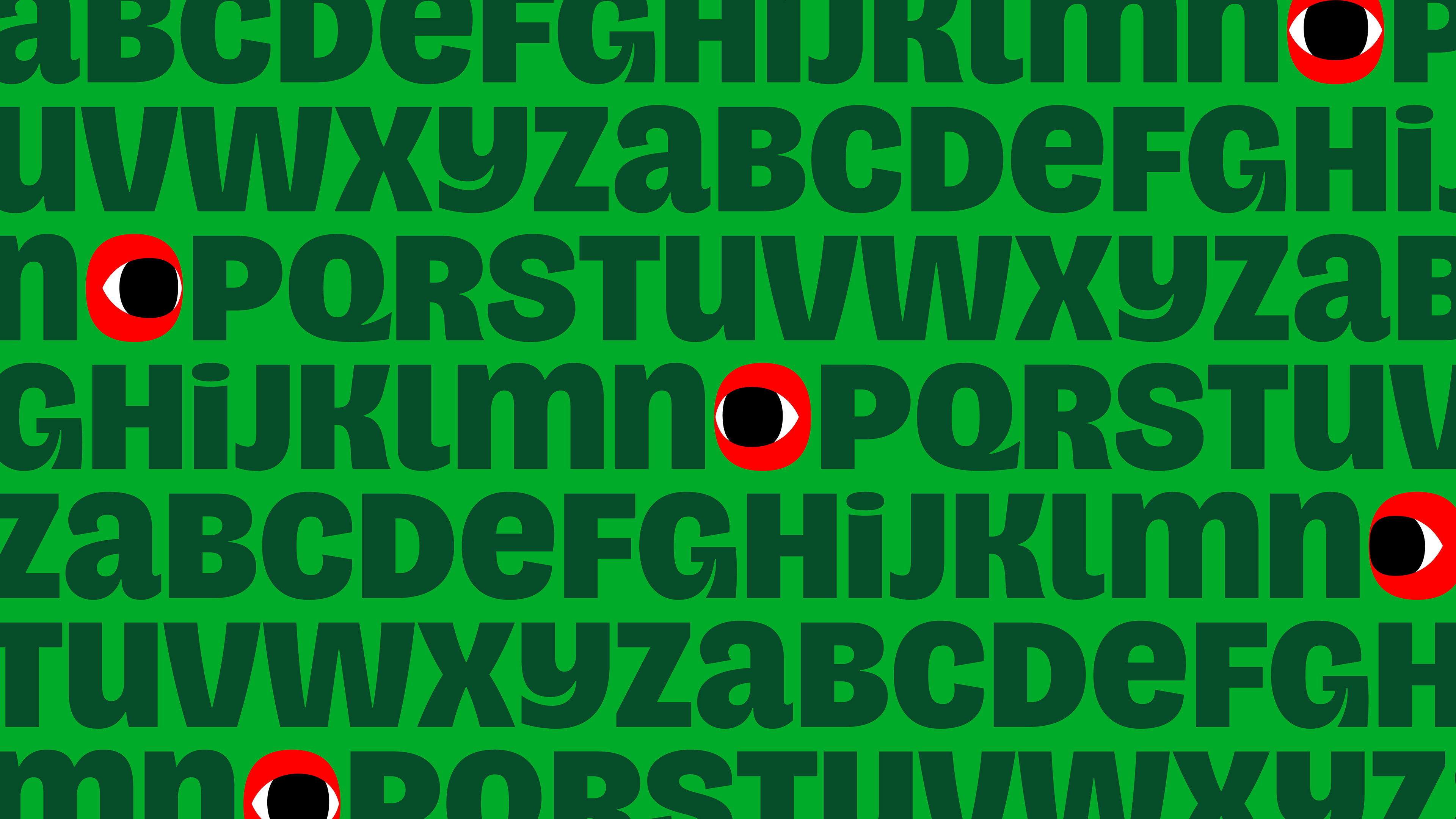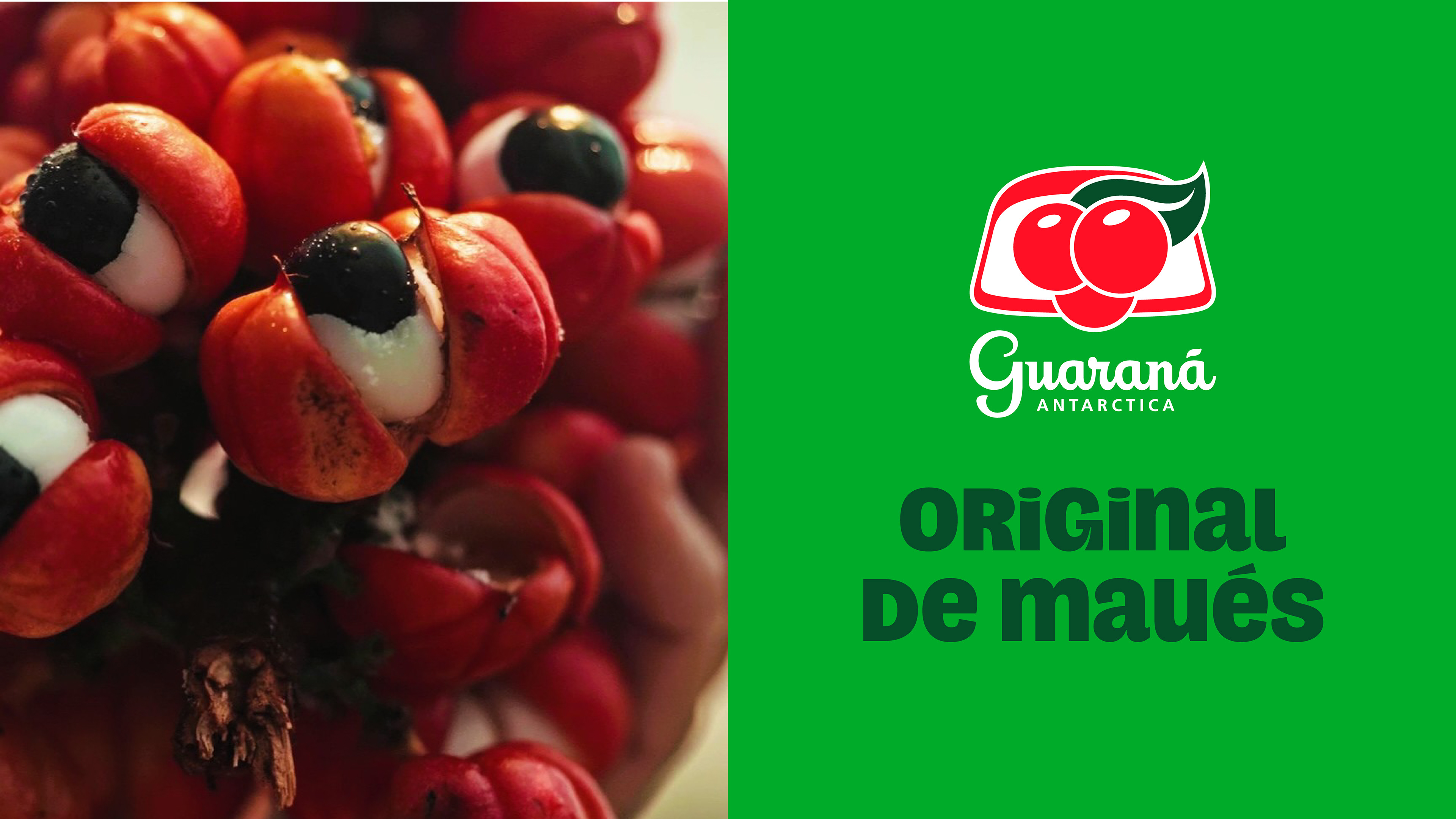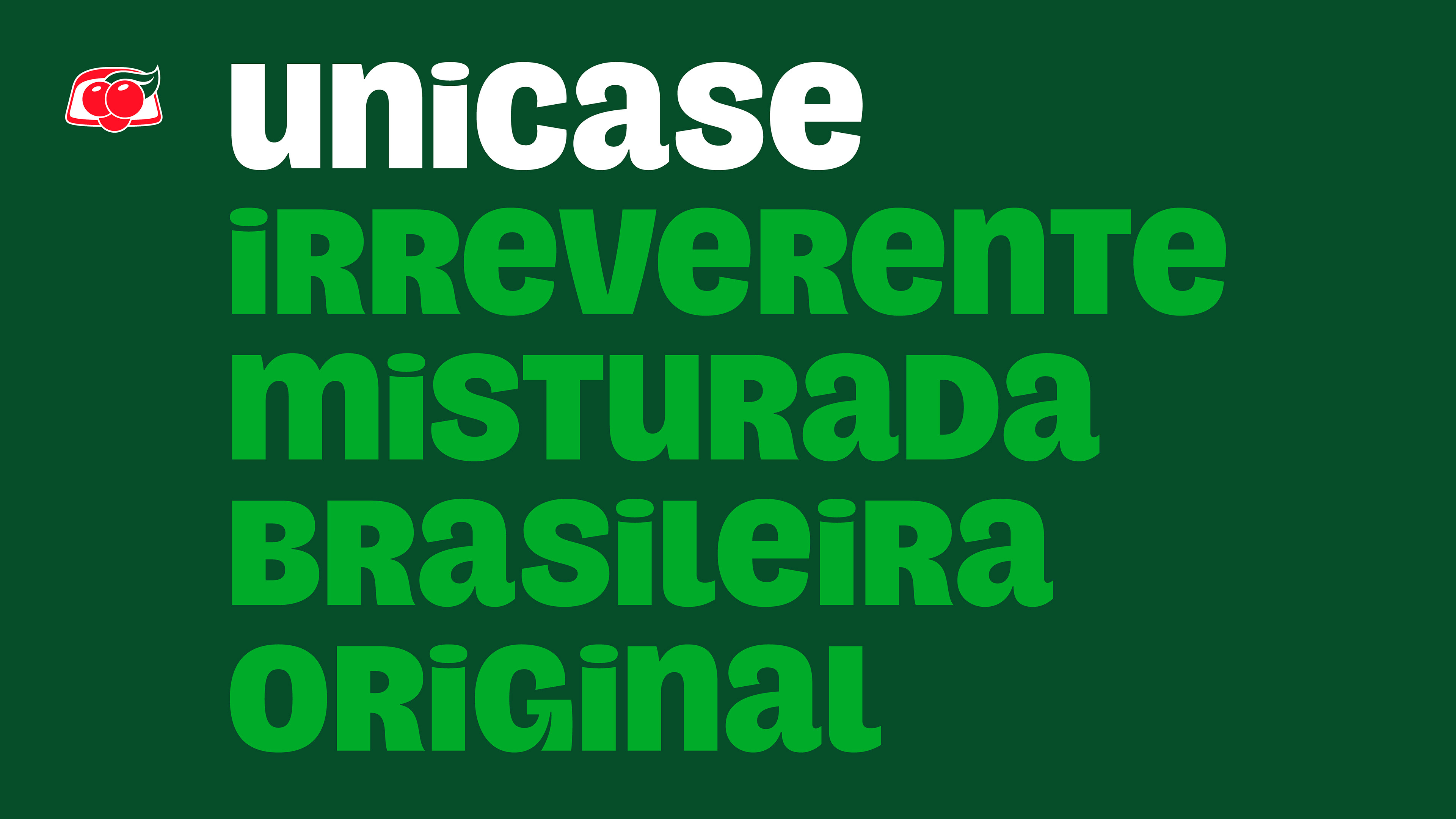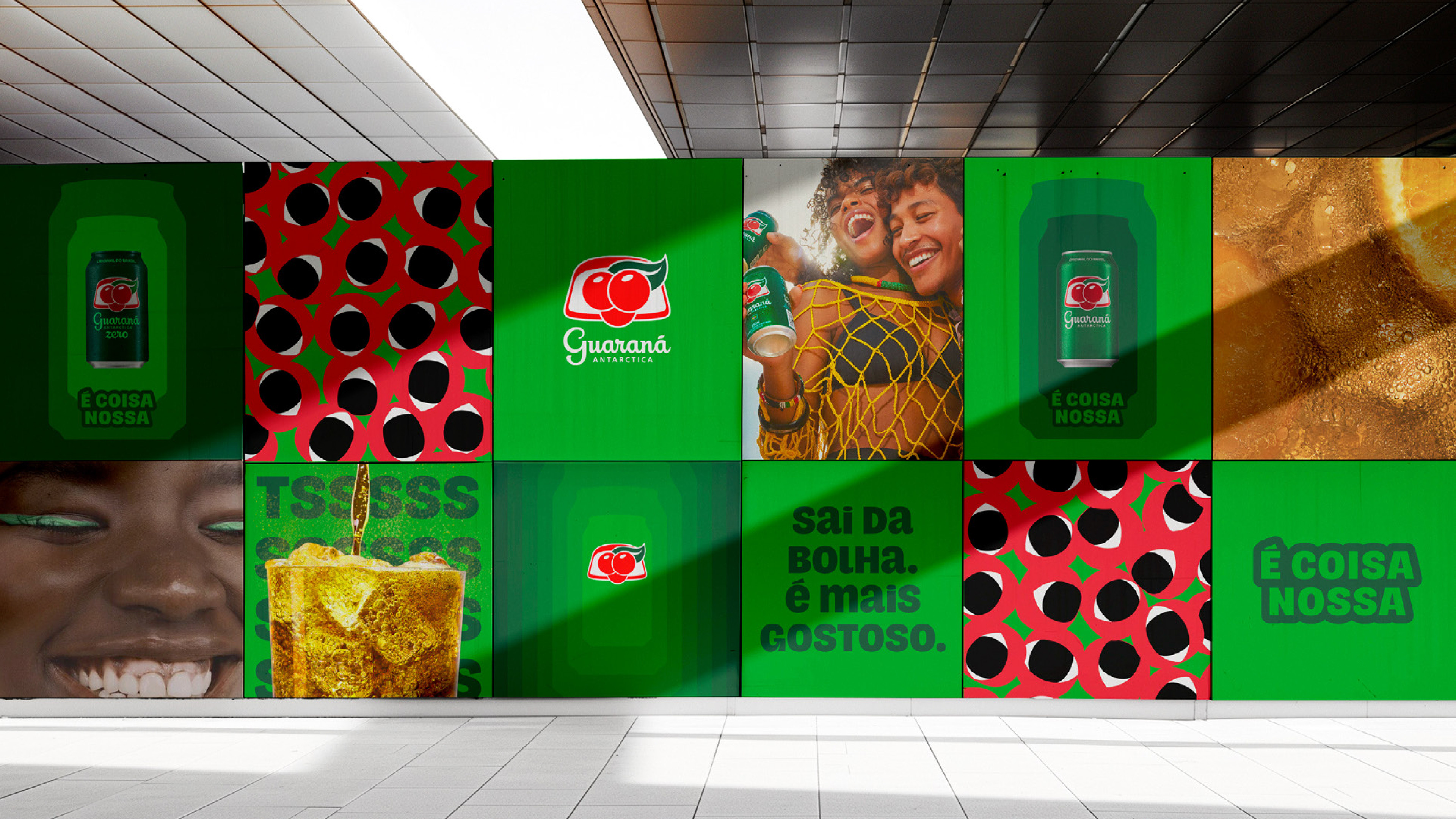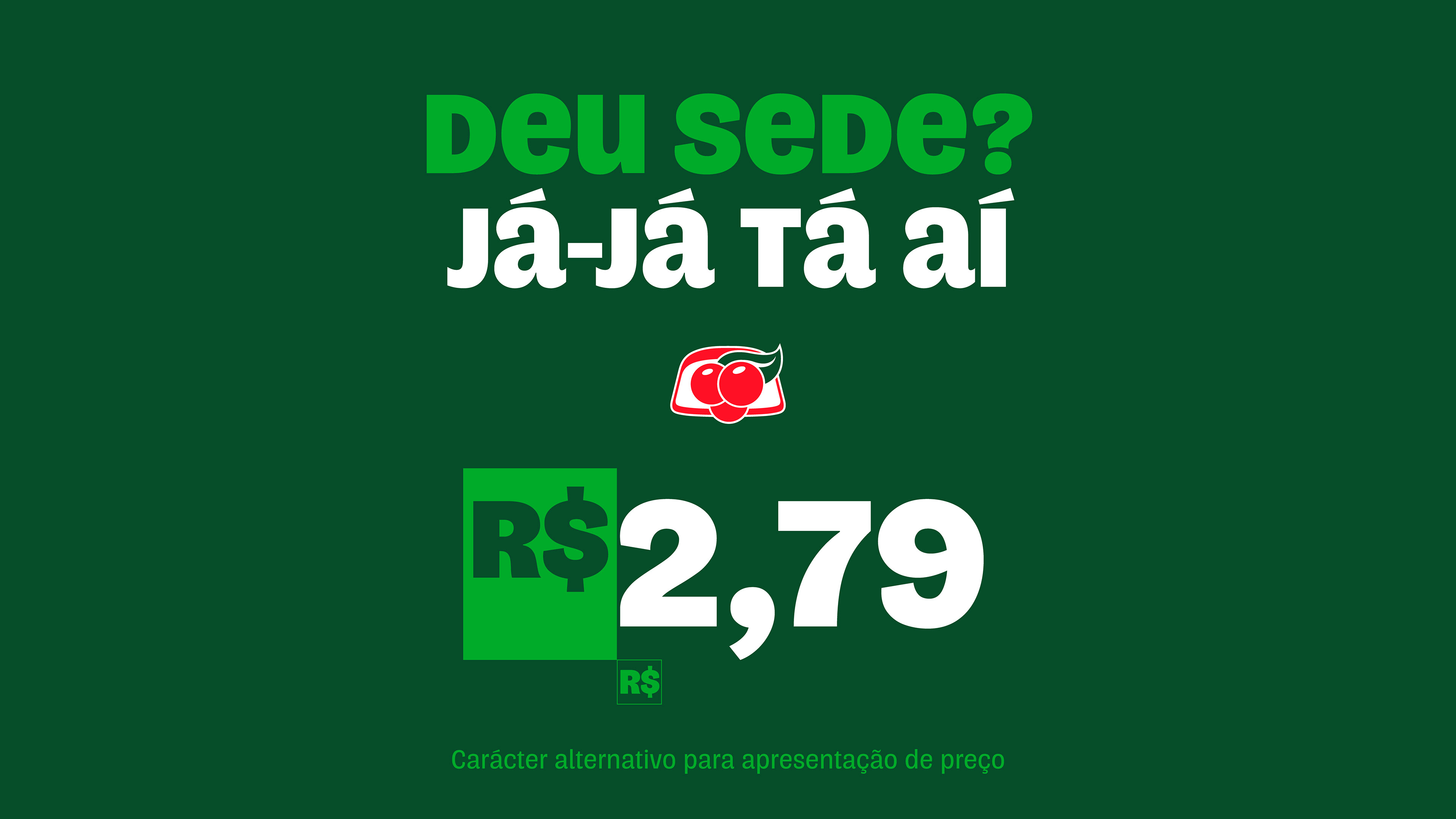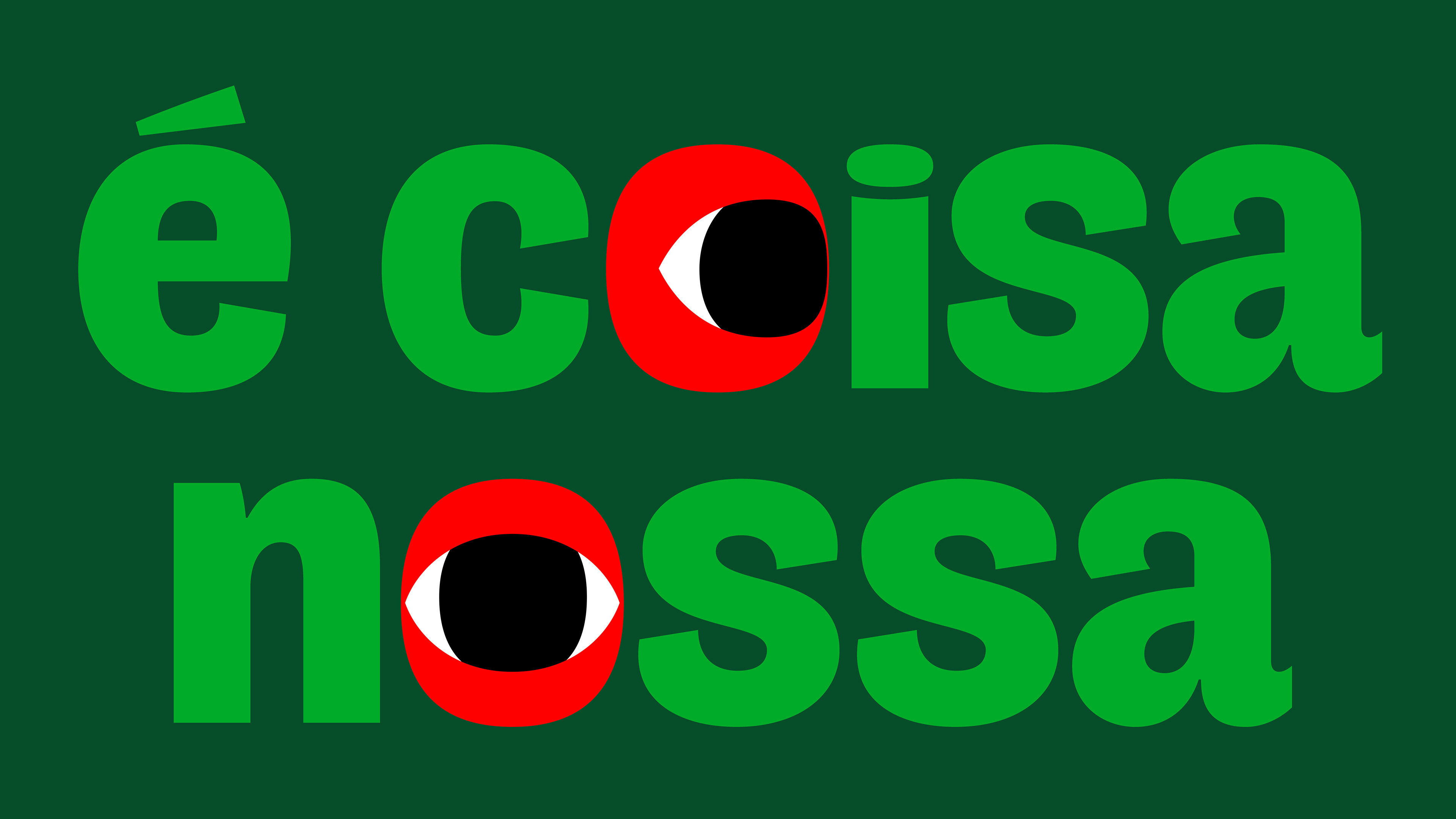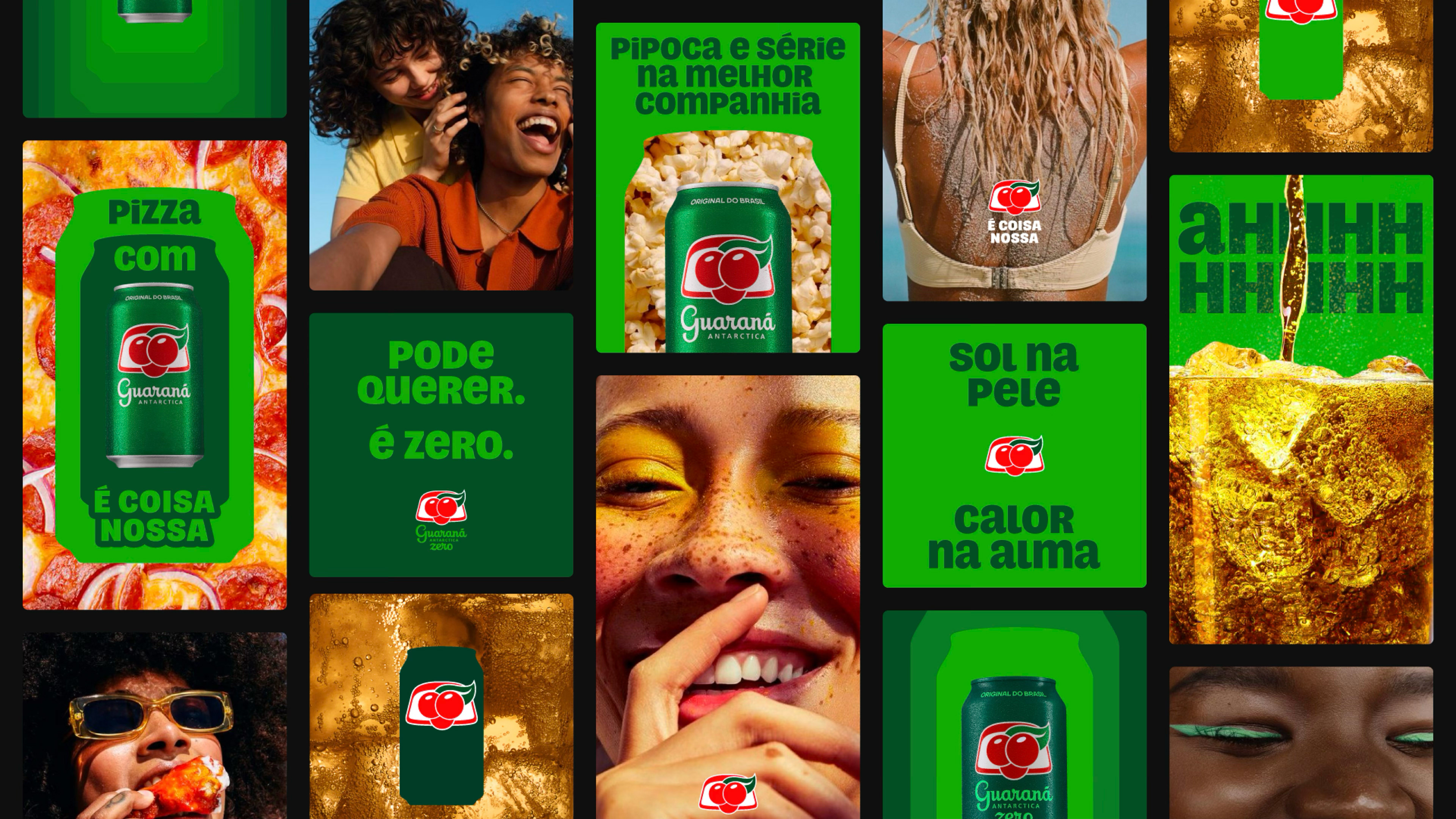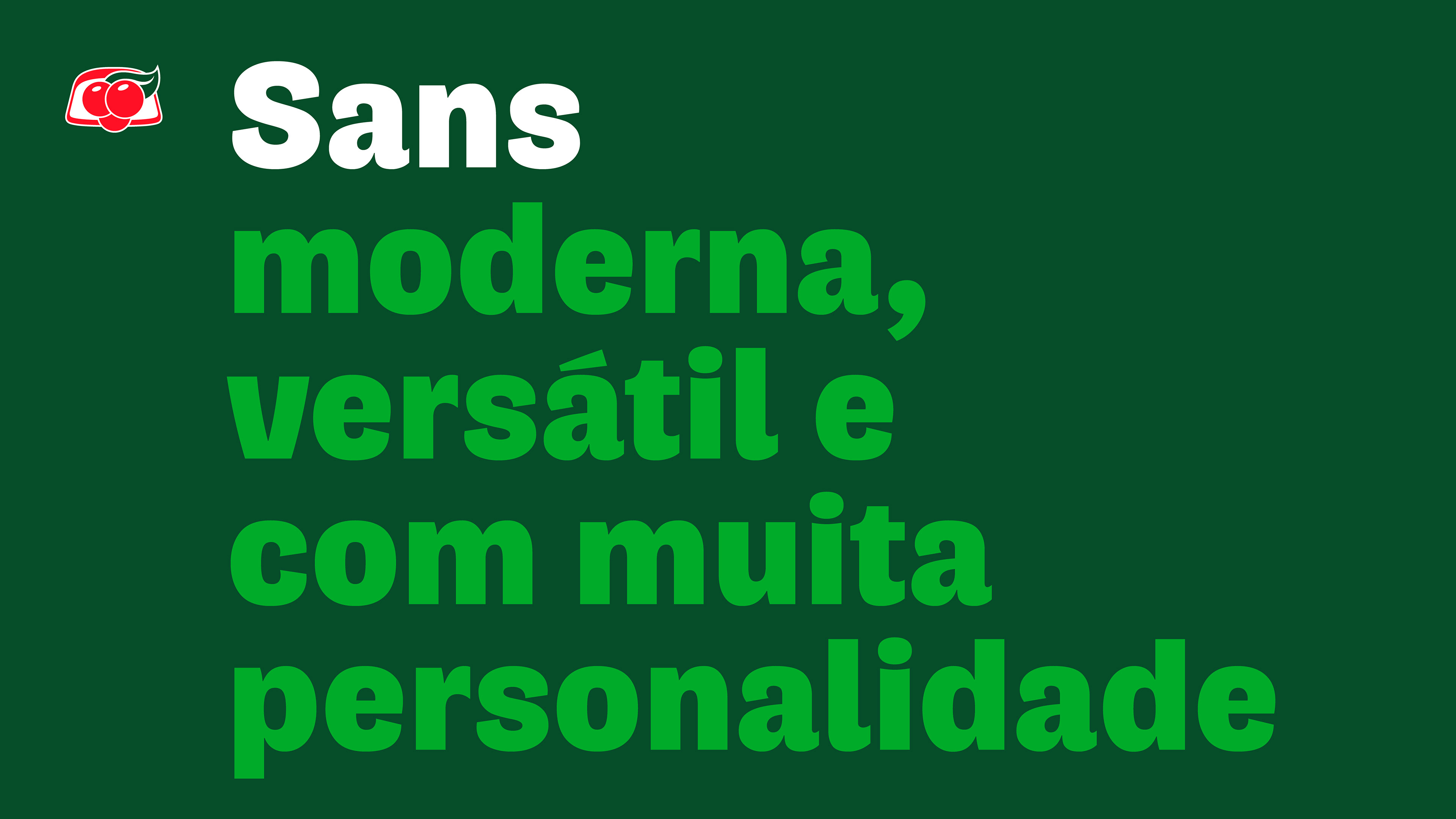
Guaraná Antarctica Typeface
A custom type family that captures the vibrant energy of guaraná. Every curve and contrast conveys movement and vitality, reflecting the spirit of those who live life to the fullest. Original from Brazil and exclusive to Guaraná Antarctica, its sinuous shapes and irreverent personality give voice to a truly unique identity.
Guaraná Antarctica Typeface
Uma família tipográfica proprietária que traduz a energia pulsante do guaraná. Cada curva e contraste expressa movimento e vitalidade, refletindo o espírito de quem vive intensamente. Original do Brasil e exclusiva para o Guaraná Antarctica, sua forma sinuosa e personalidade irreverente dão voz a uma identidade única.